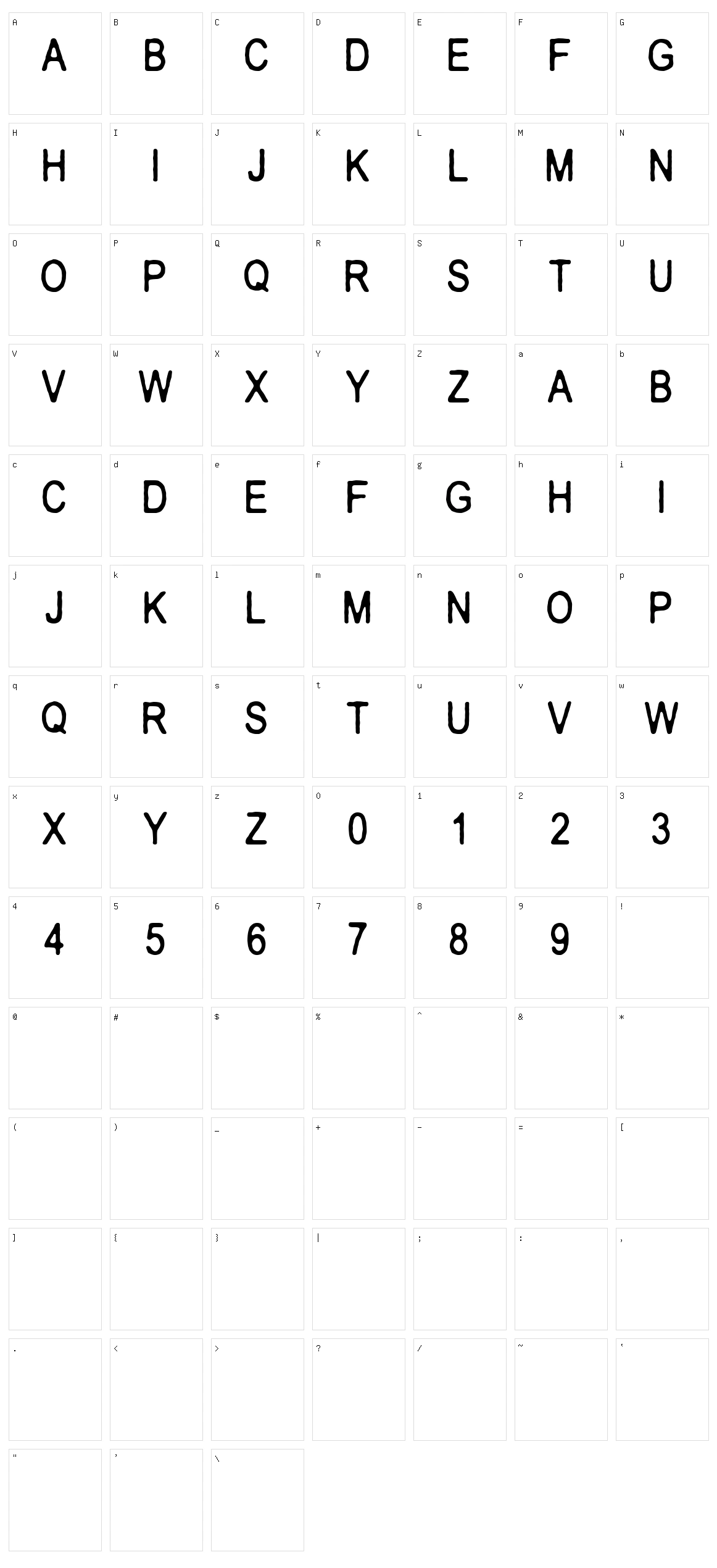
The free font Crakos is carefully designed by Qbotype Fonts, showcasing a thoughtful balance of creativity and usability and falls under the Eroded font style. When you download the ZIP file, it contains only 15.46 KB of font files, making it lightweight and quick to download. Please review the license details below to understand permitted usage and distribution rights. If license information is not available, we recommend using this font for personal projects only or contacting the author directly for commercial usage permissions.